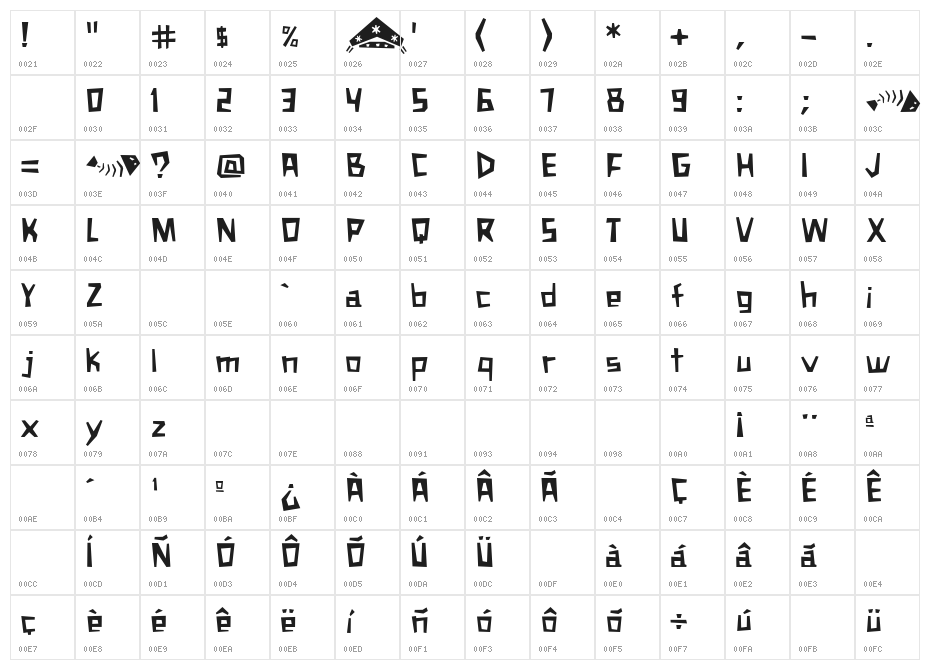
Xilosa Font
| Stile generale | Playful, Quirky |
| Caso d'uso | Headlines, Posters, Branding |
| Progetti proposti | Ideal for children's books, playful posters, and creative branding. |